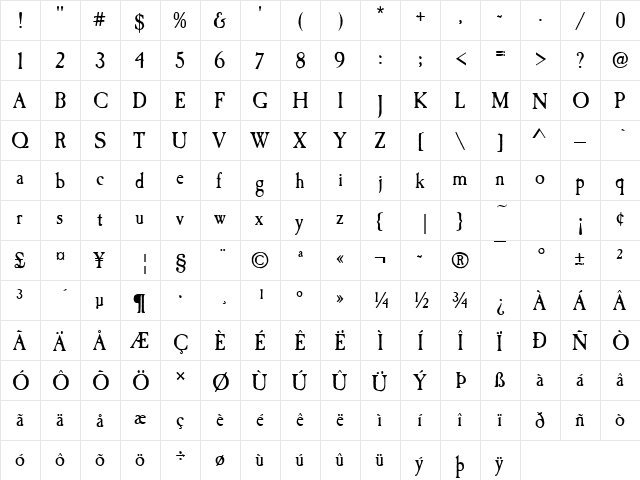
Caslon Becker Antique Regular
Design Context for Caslon Becker Antique Typeface
Caslon Becker Antique wears its vintage influences proudly, with letterforms that recall mid-century signage, classic packaging, and nostalgia-driven design.
Font Pairing: Combine Caslon Becker Antique with a simple slab or neutral sans — period-accurate companions reinforce the vintage feel without competing for attention.
Pro Tip: Use Caslon Becker Antique for headlines and pull quotes rather than body copy — its personality is best appreciated in short, focused bursts.